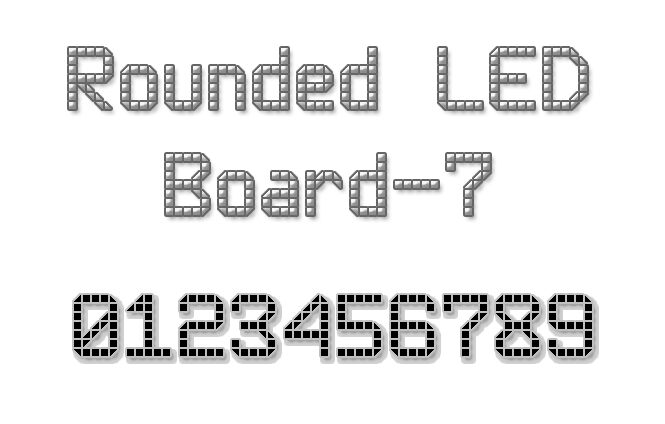
Rounded LED Board-7 by Style-7 is a free digital display font modeled on segmented electronic signage and scoreboard lettering. Broad horizontal bars dominate the shapes, with regular gaps that mimic a multi-segment panel rather than a conventional alphabet.
For sports event posters and venue signage, the lettering supplies the direct visual cue of a timer or results board. The same machine-like forms also suit arcade game interfaces and retro electronics packaging, where the type can become part of the display concept. Its most receptive audience is likely designers working with competitive sports, vintage computing, or nostalgic technology and entertainment themes.